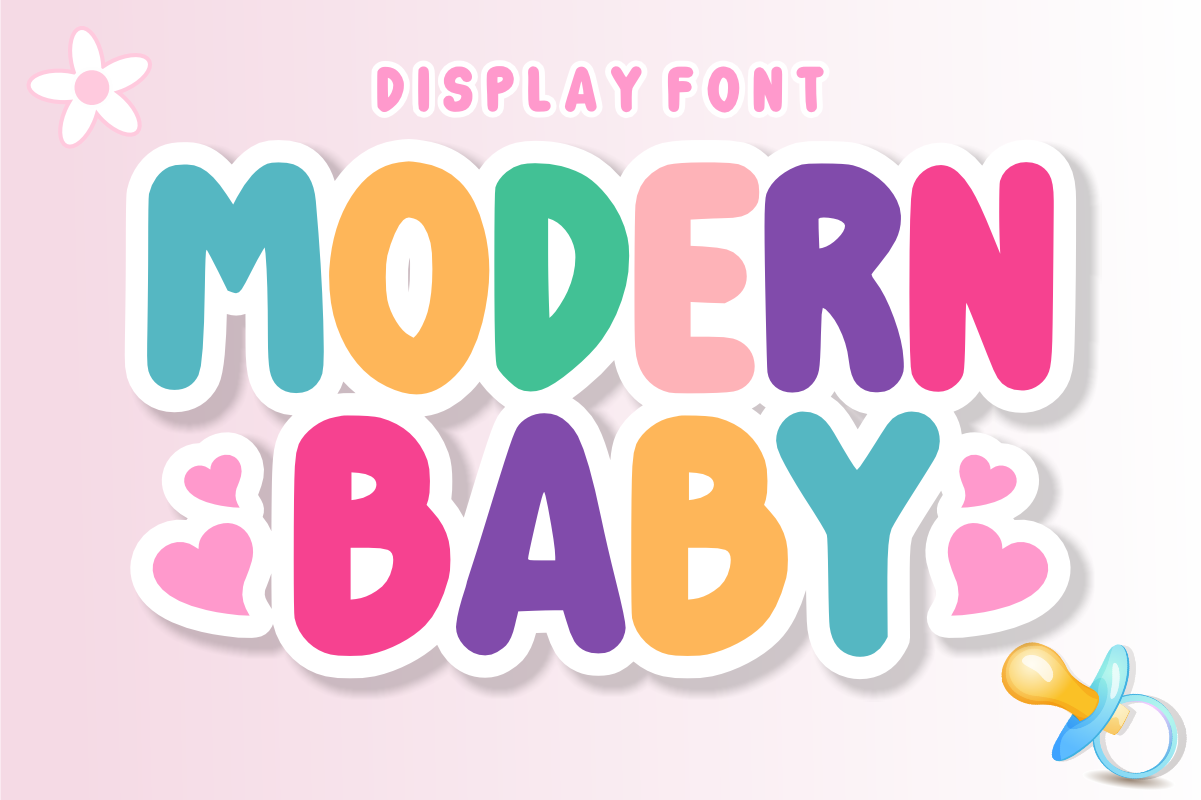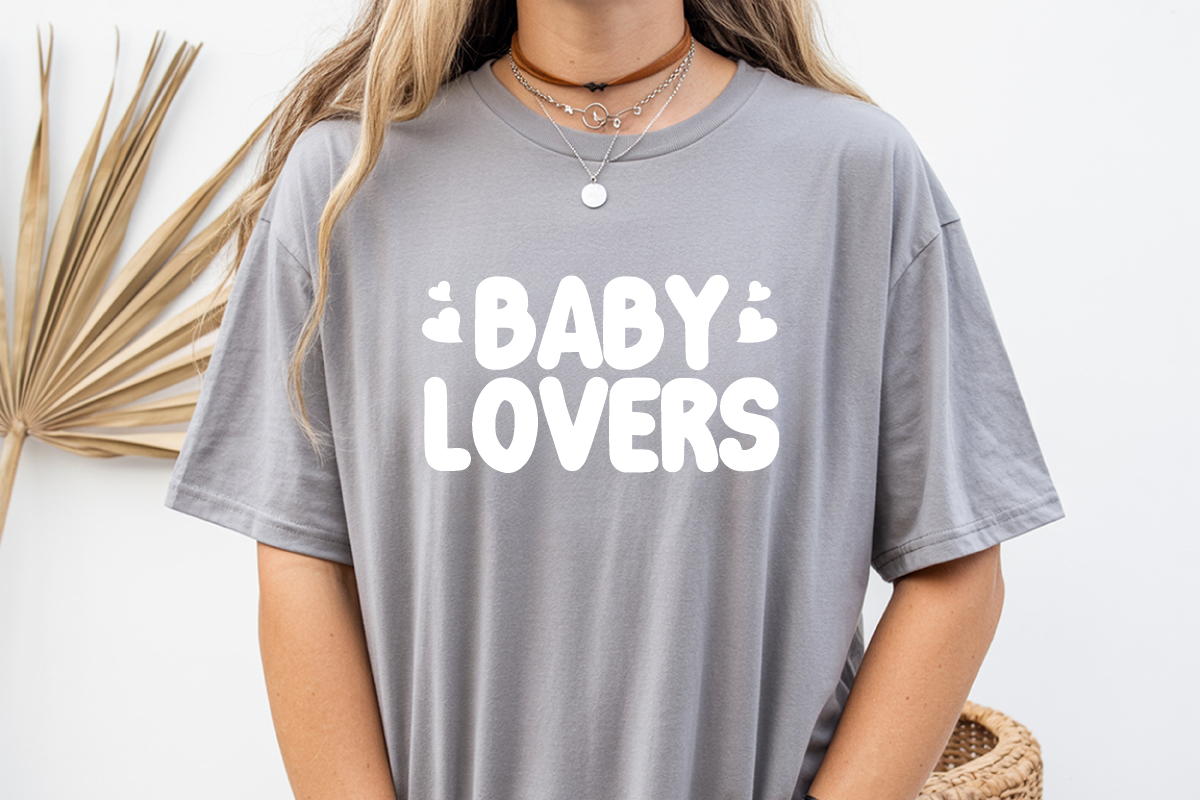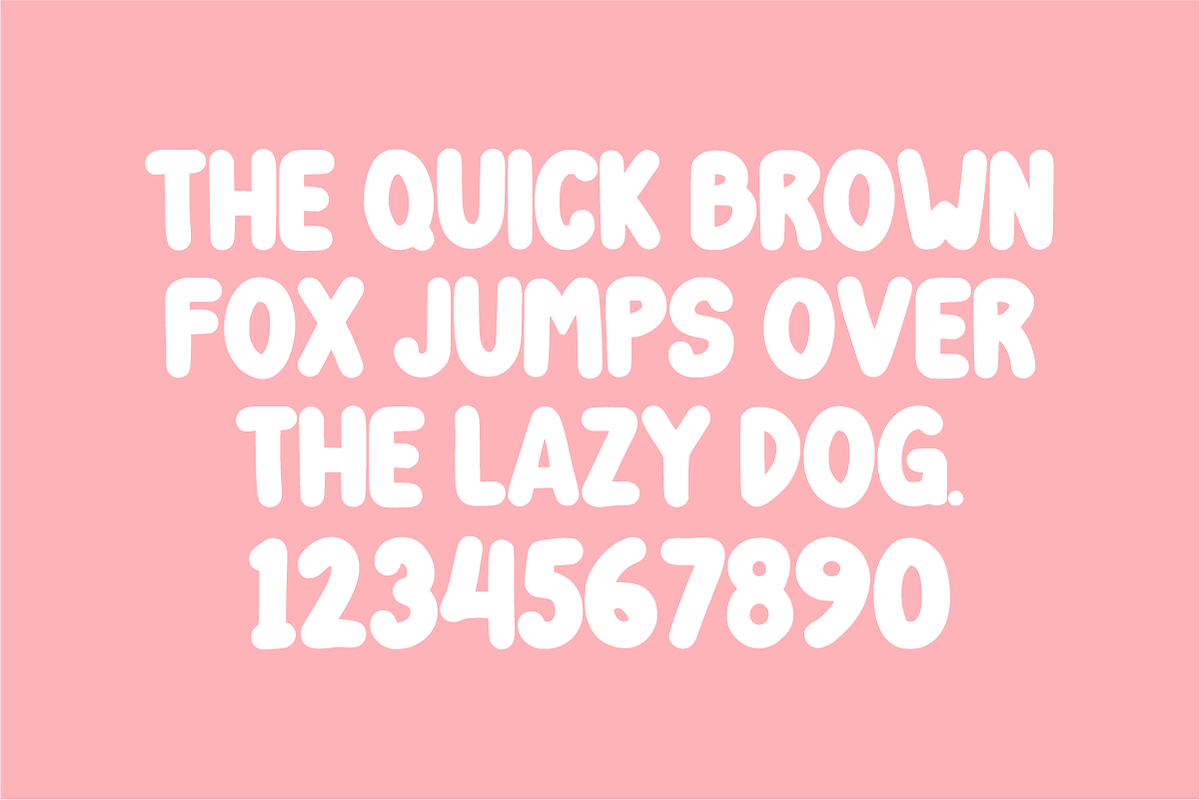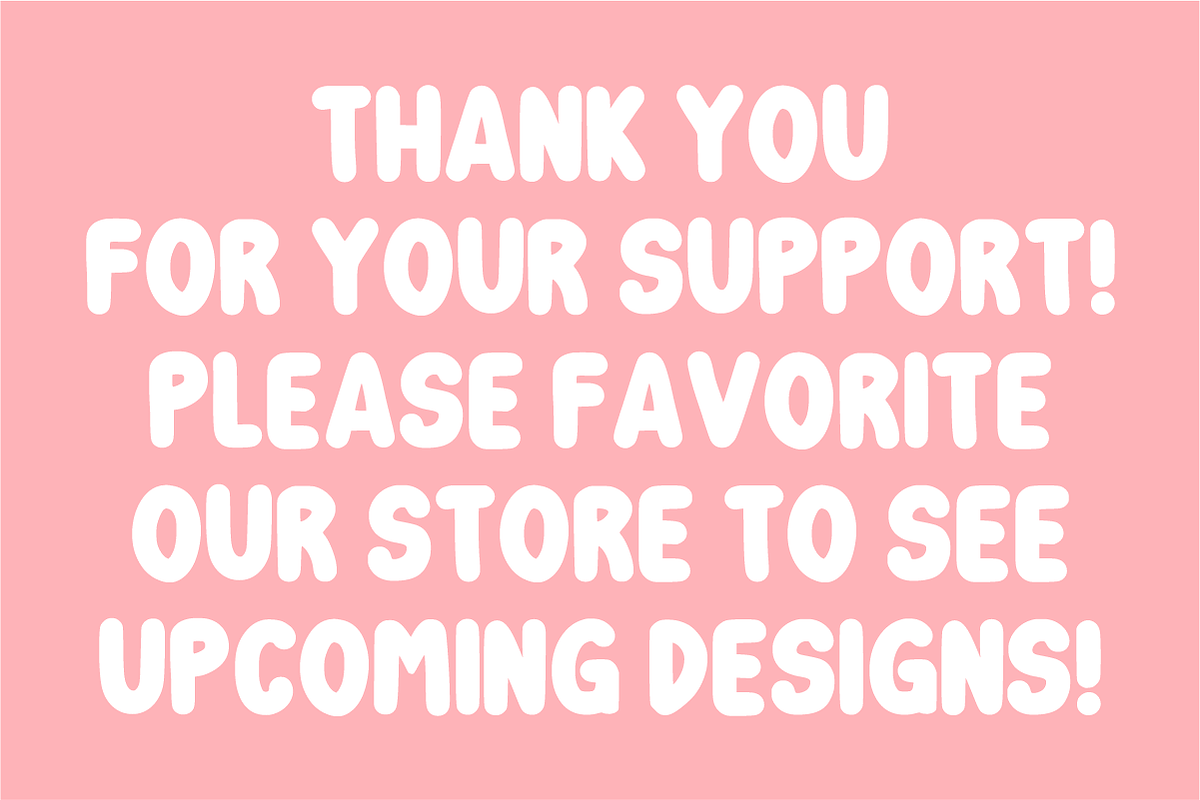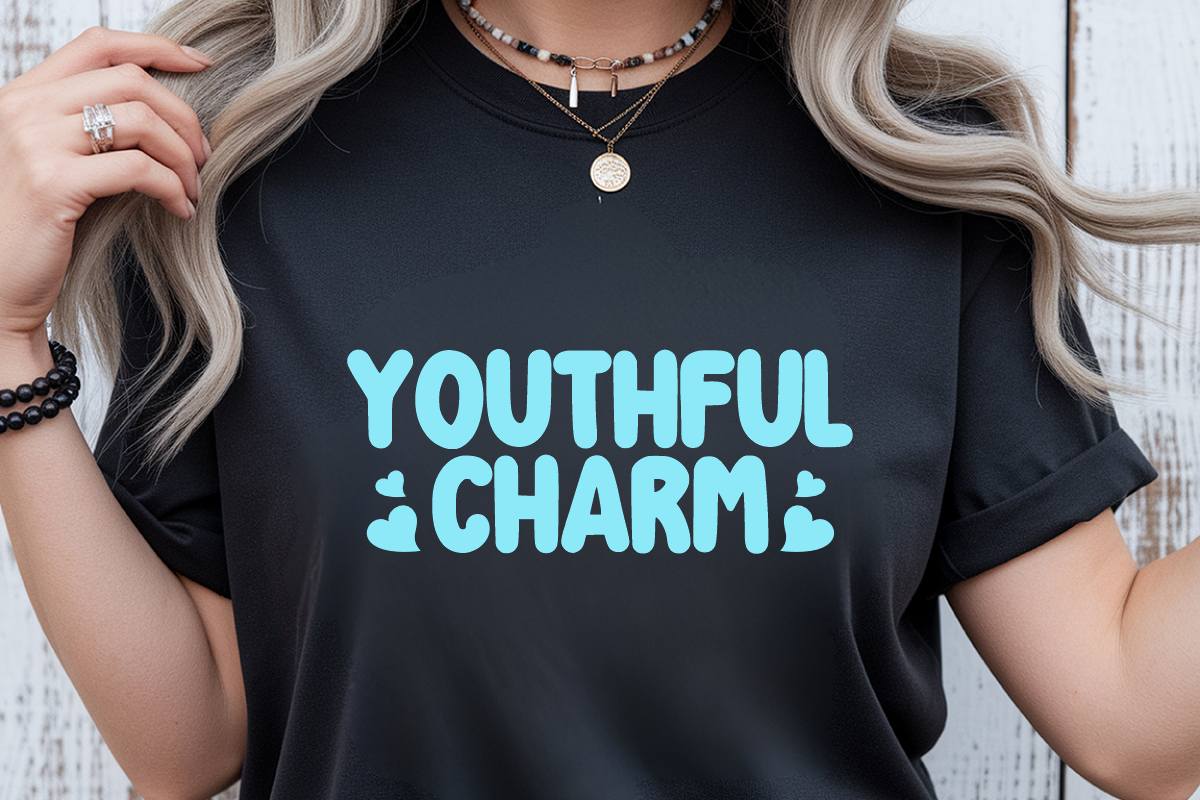
Modern Baby - Cute Nursery Font
Modern Baby is a clean, smooth, and bubbly display font featuring soft rounded letterforms and a charming contemporary nursery aesthetic. Designed to bring warmth, playfulness, and modern style to baby shower branding, nursery wall decor, and kids' apparel, this versatile font makes every headline look inviting and sweet. Every character is cleanly vectorized to guarantee high-resolution prints and smooth, effortless cutting on Cricut and Silhouette machines.
Uppercase Character Set
Numbers & Basic Punctuation